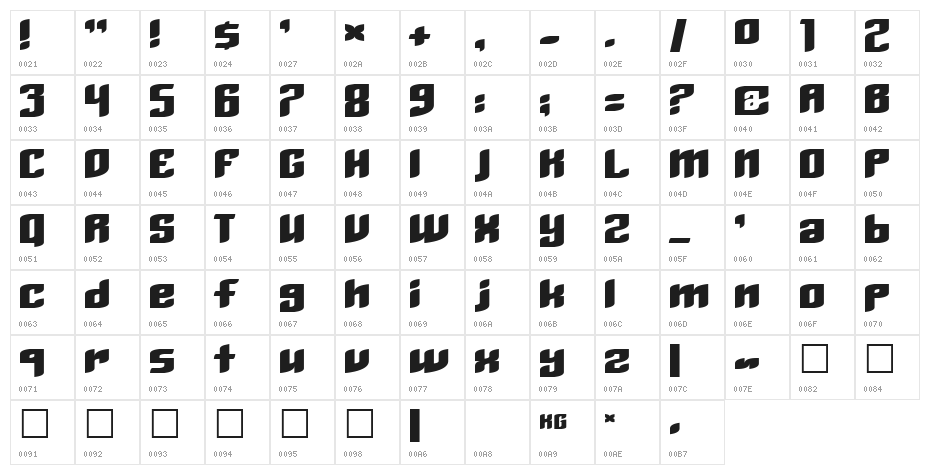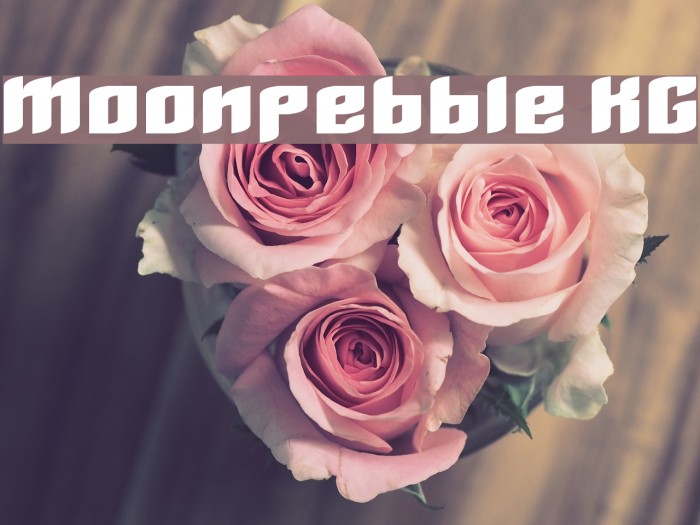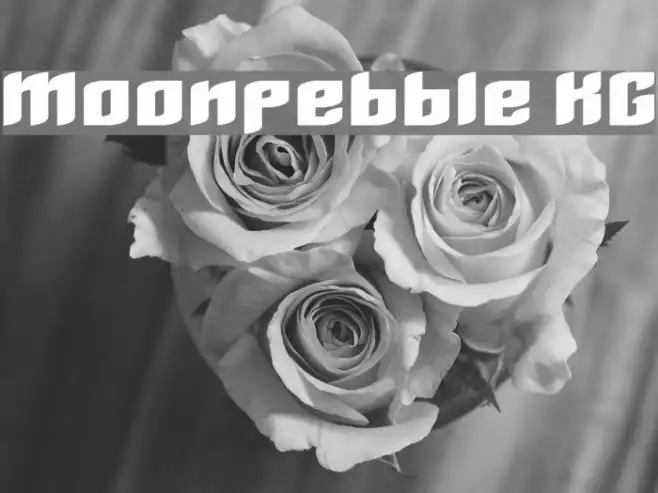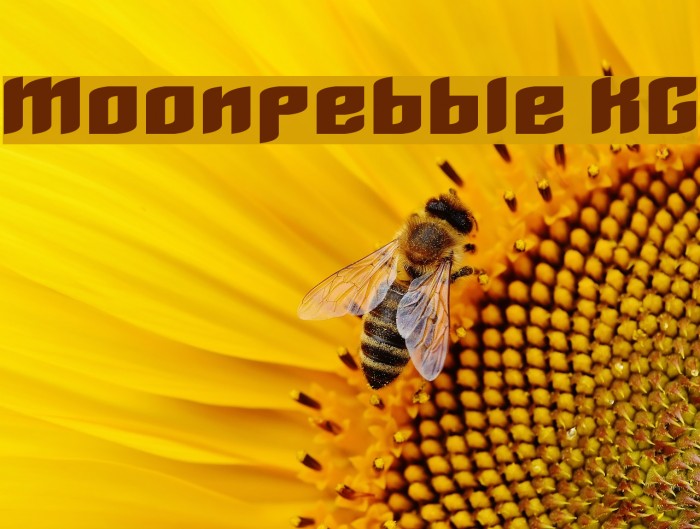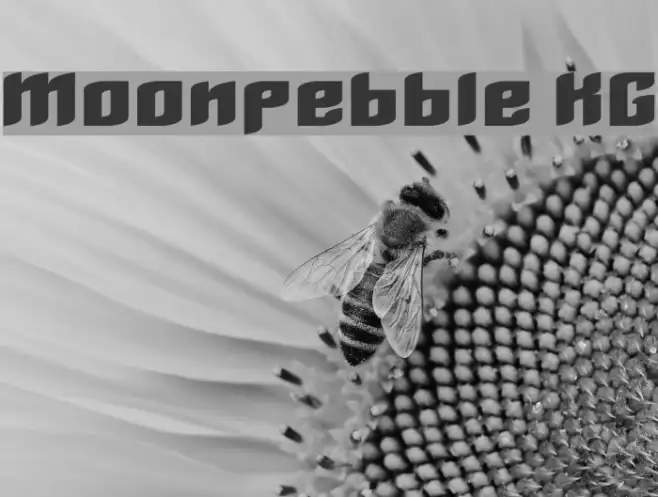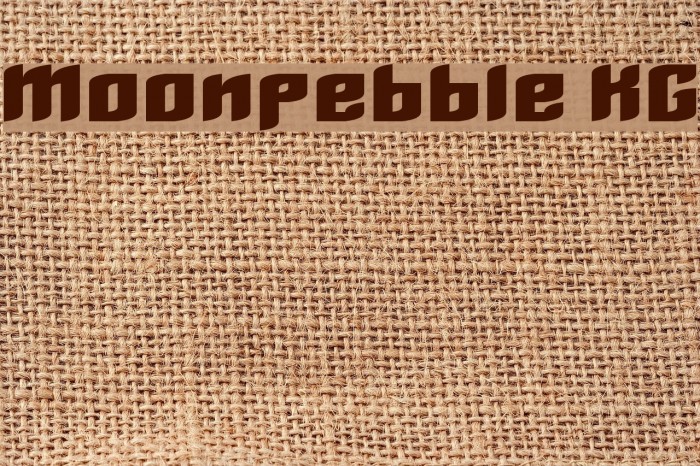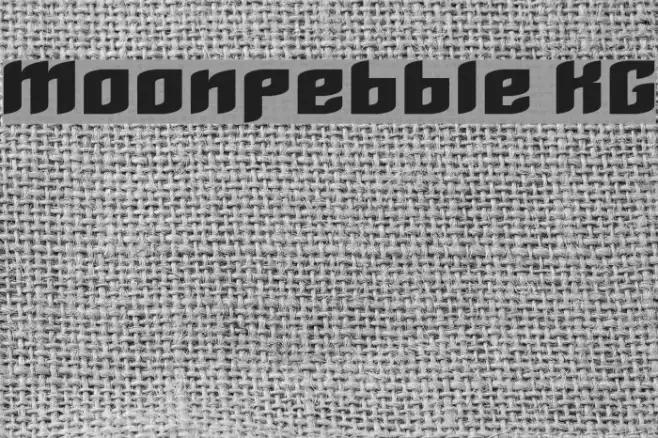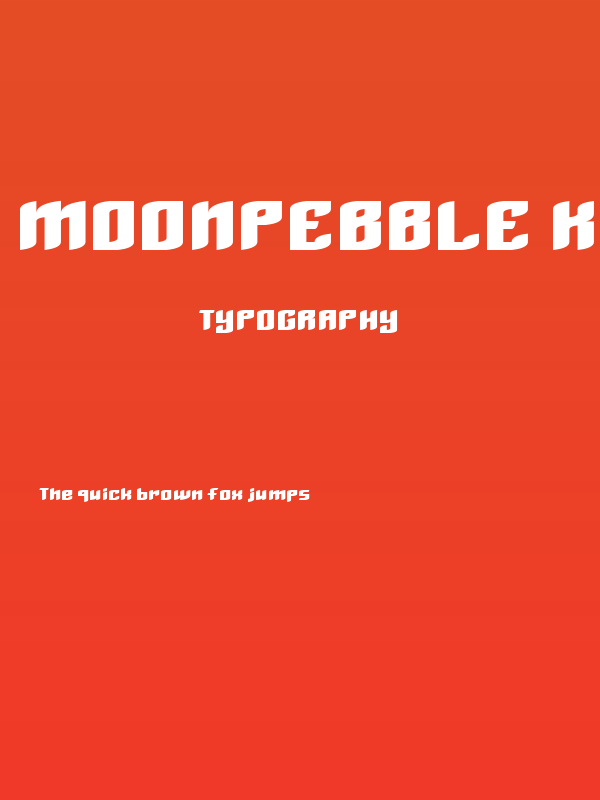
Moonpebble KG Font
Moonpebble KG Description
This font features bold, geometric letterforms with a modern and playful aesthetic. The characters are designed with a strong presence, characterized by thick strokes and angular edges that create a sense of movement and energy. The uppercase and lowercase letters maintain a consistent style, with the lowercase mirroring the boldness of the uppercase. Numbers are equally robust, ensuring readability and impact. Special characters are designed to match the overall style, providing a cohesive look across all glyphs. The font's unique design makes it suitable for eye-catching headlines and creative projects.
| Proposed Projects | Ideal for branding, posters, headlines, and any project requiring a bold, modern aesthetic. |